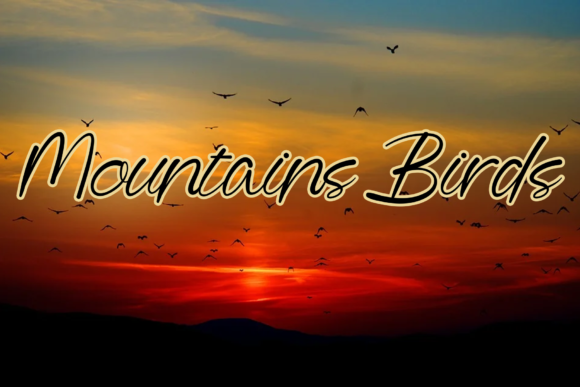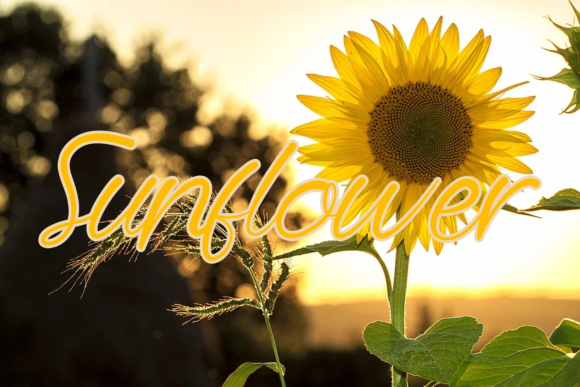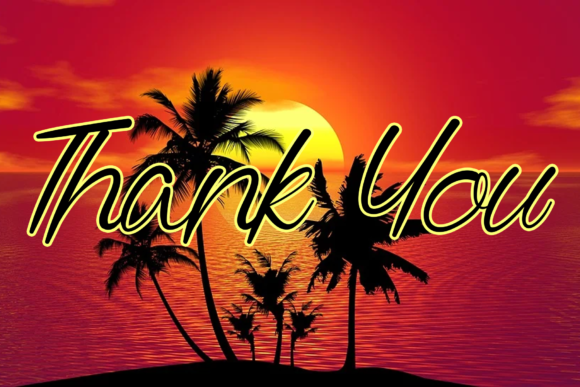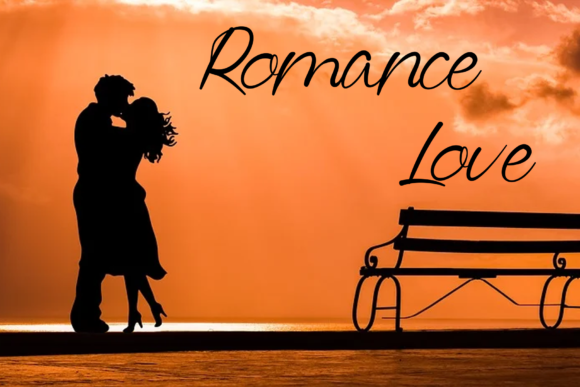
Sunset Font
About Sunset Font
Sunset is a delicate handwritten font, featuring a sweet flow. It can match a wide range of formal or casual creations, that require an elegant touch. Add it confidently to your projects, and you will love the results.